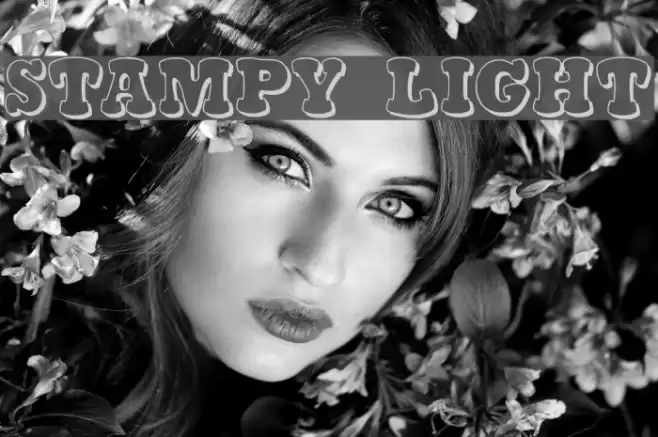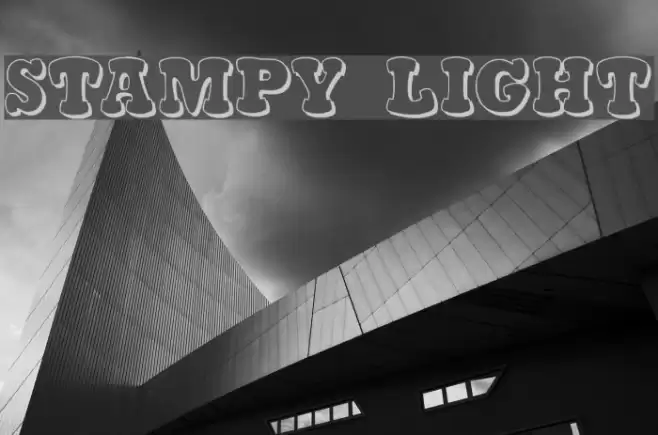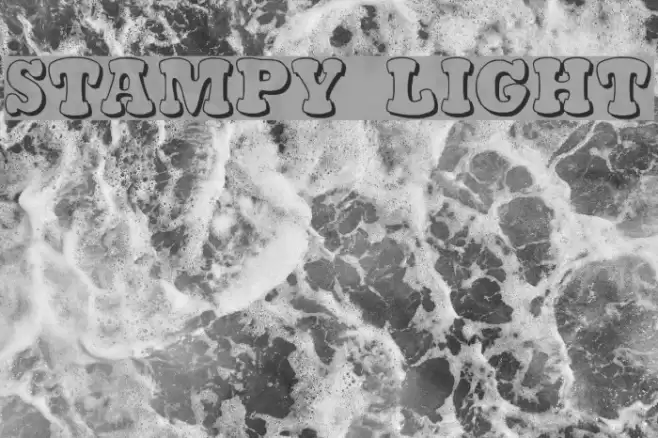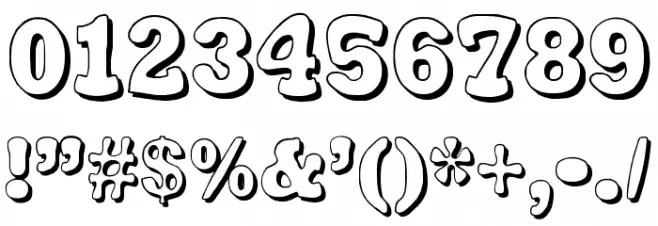
Stampy Light Font
Stampy Light Description
This font features a playful and bold design with a bubble-like appearance. Each character is outlined, creating a sense of depth and dimension. The letters are rounded and slightly inflated, giving them a cartoonish and friendly look. The font maintains consistent thickness throughout, with a uniform stroke that adds to its whimsical style. It is highly legible and stands out due to its unique outline effect, making it suitable for eye-catching designs.
A playful, outlined font with a bubble-like, cartoonish style from Uncategorized fonts.
- Proposed Projects: Ideal for children's books, playful branding, posters, and party invitations.
- Overall Style: Playful, Cartoonish